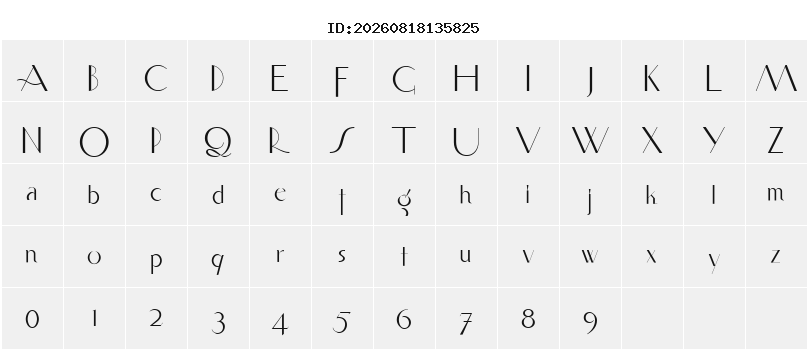
• Font Name: Smart Frocks NF
• Designer: Nick Curtis
• Manufacturer: Nick's Fonts
About Smart Frocks NF.ttf
Smart Frocks NF.ttf is a modern, elegant sans-serif font designed for ultimate readability and visual harmony. Perfect for branding, headlines, web design, and print materials.